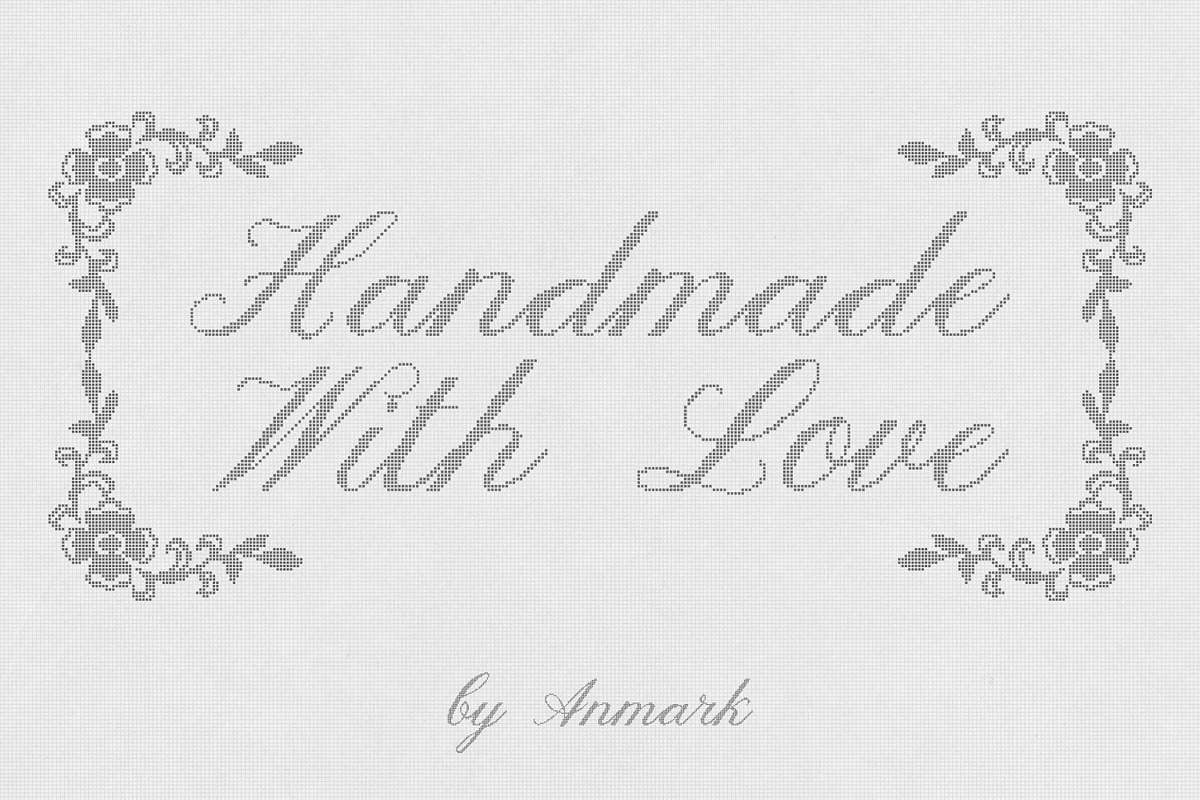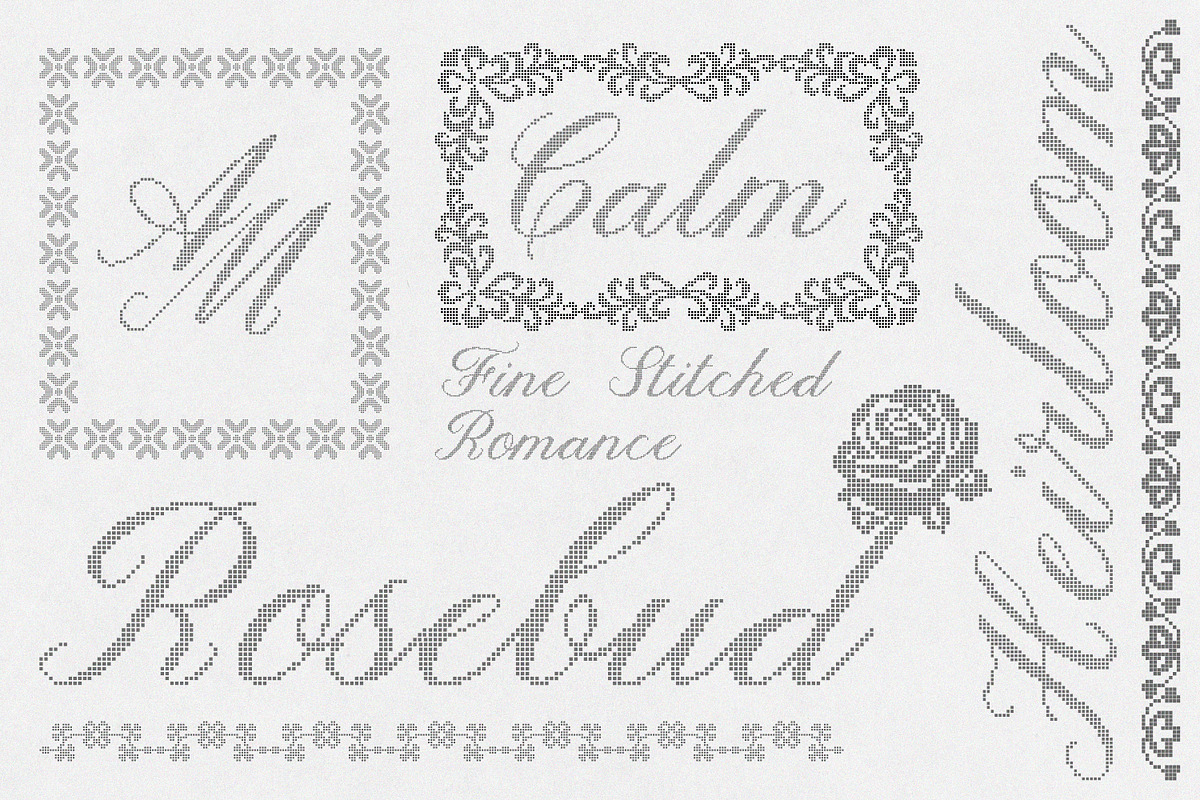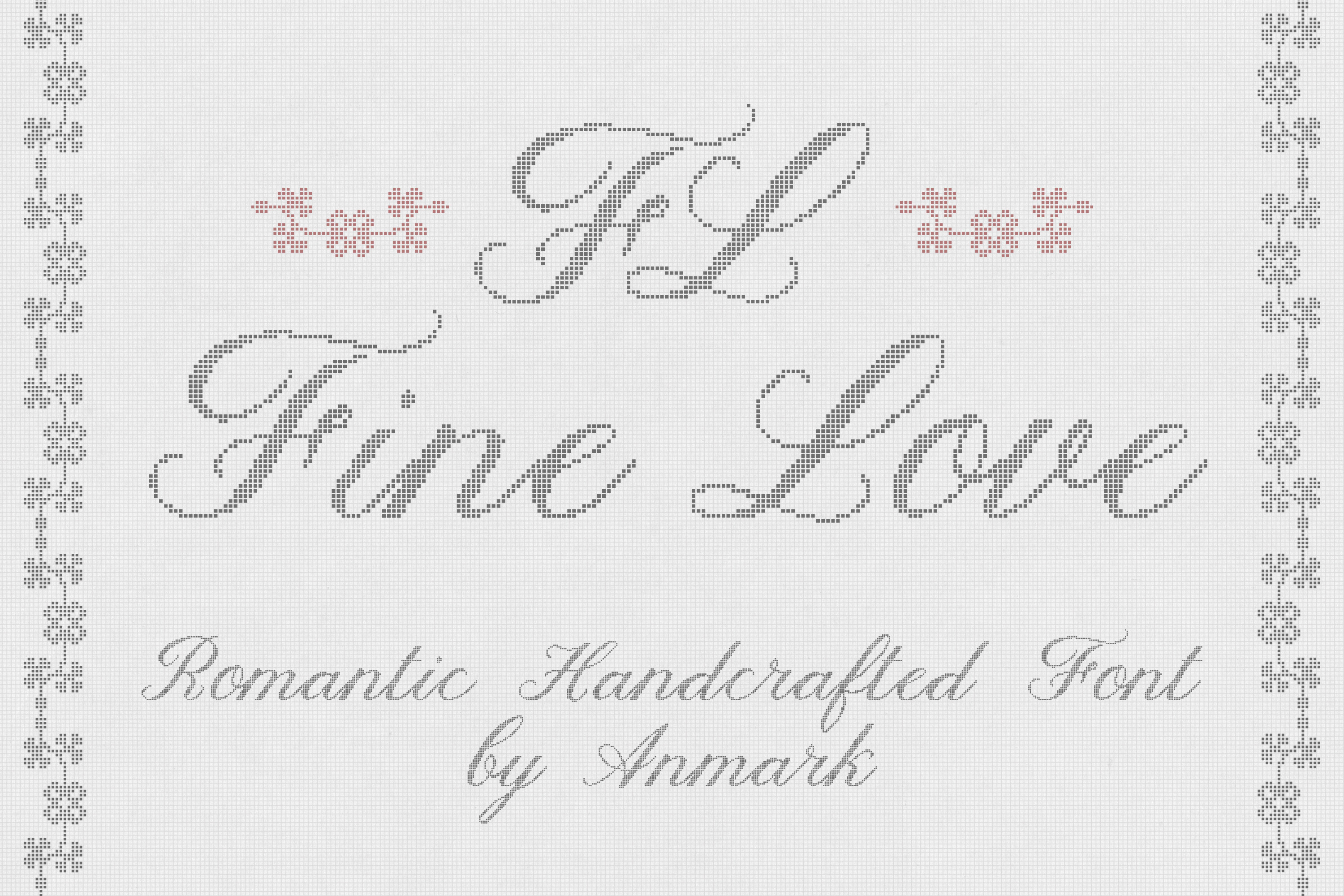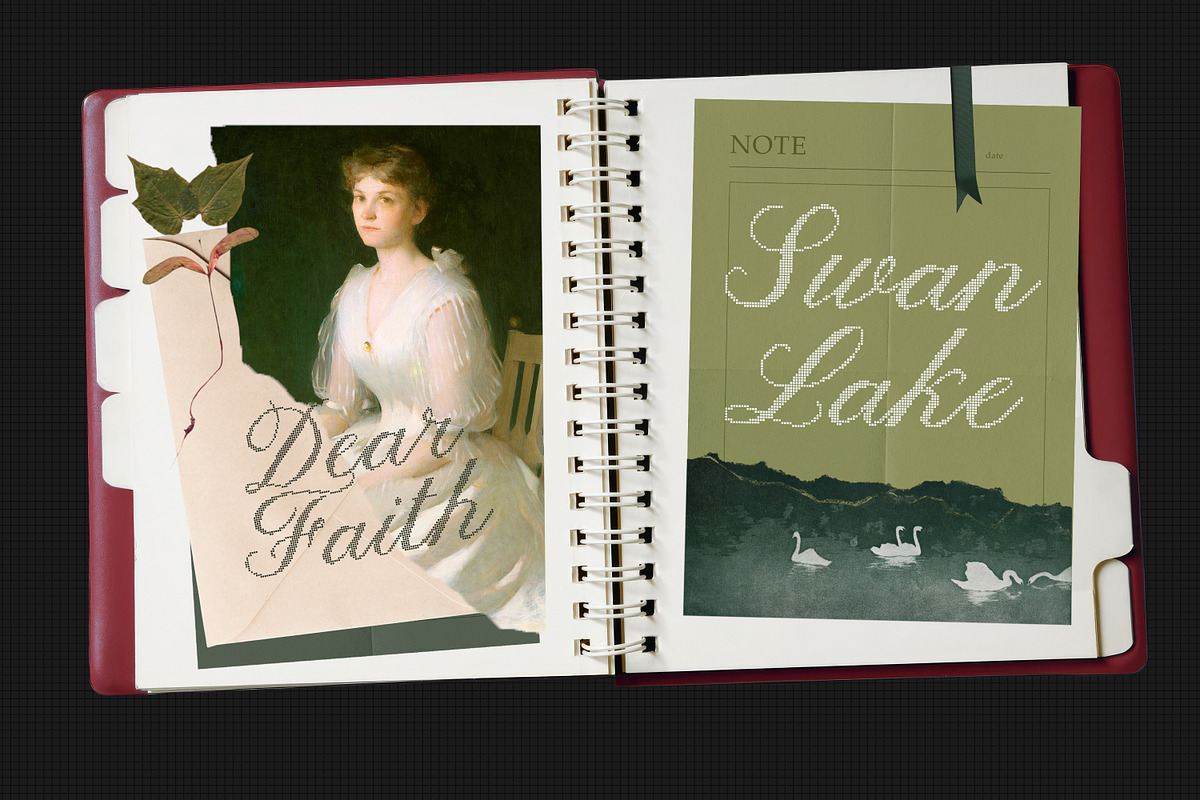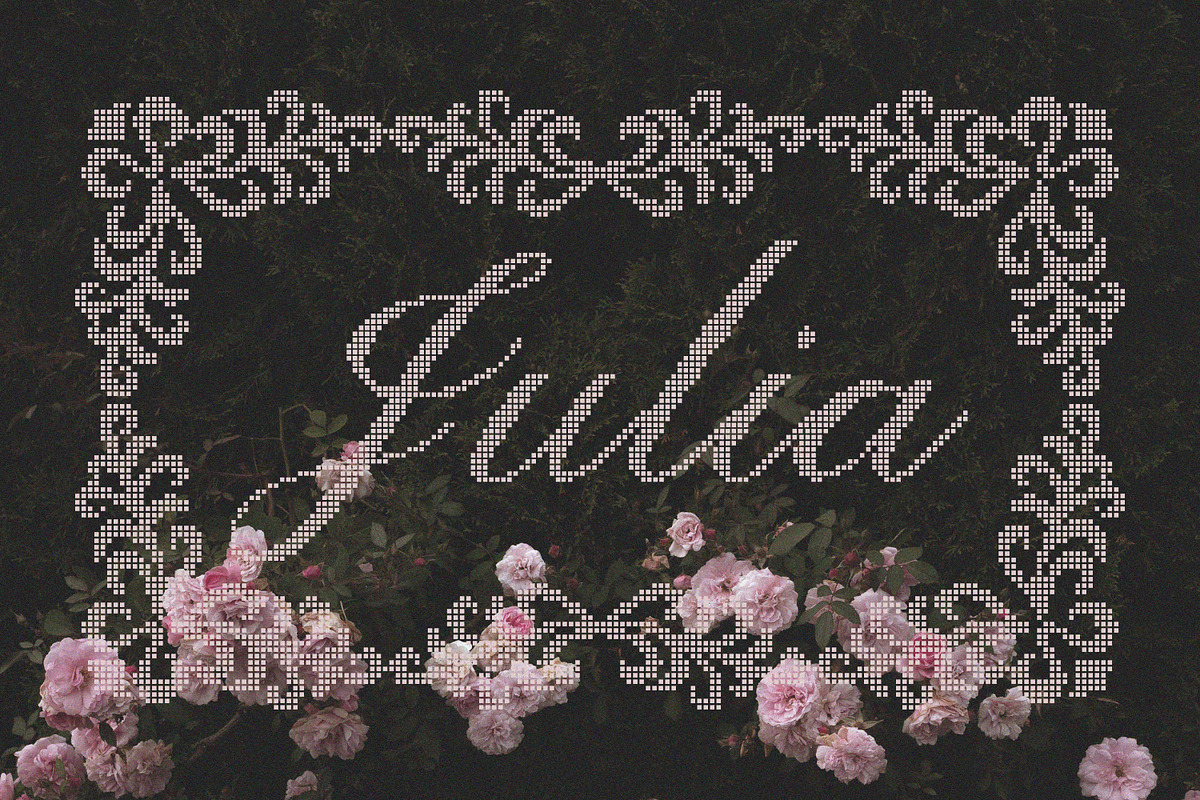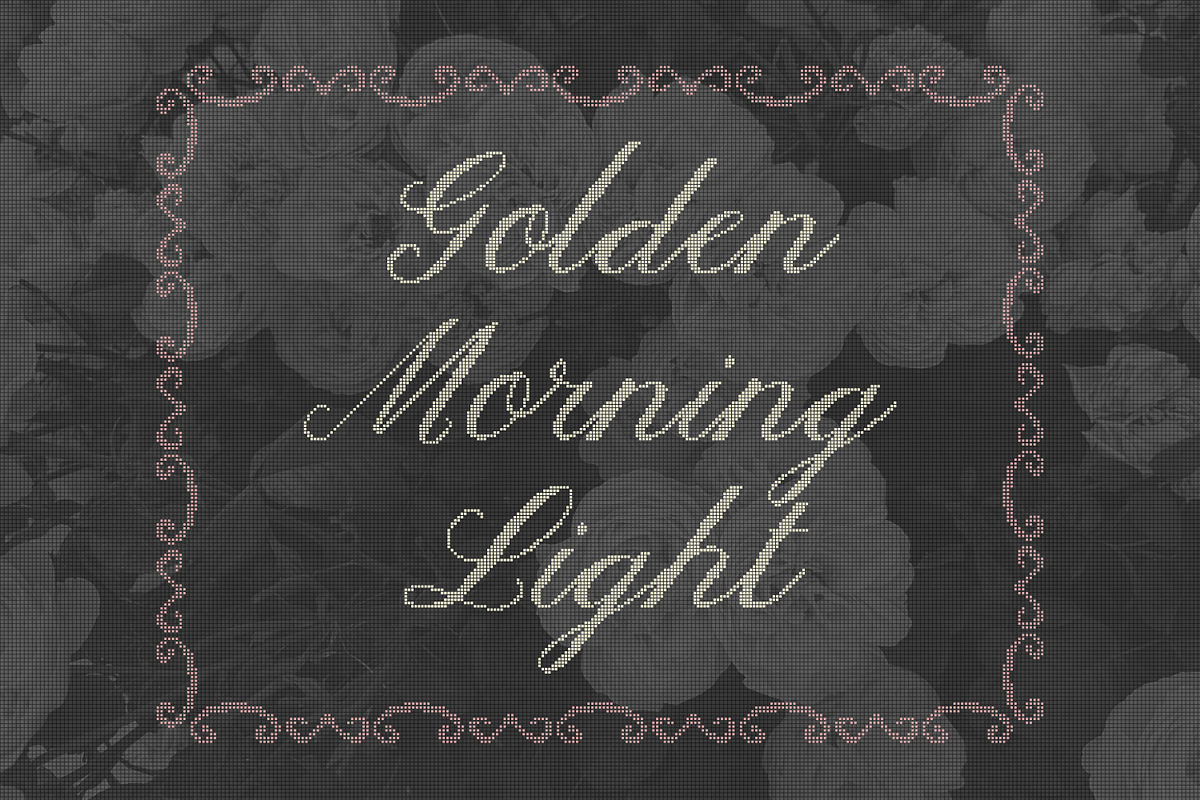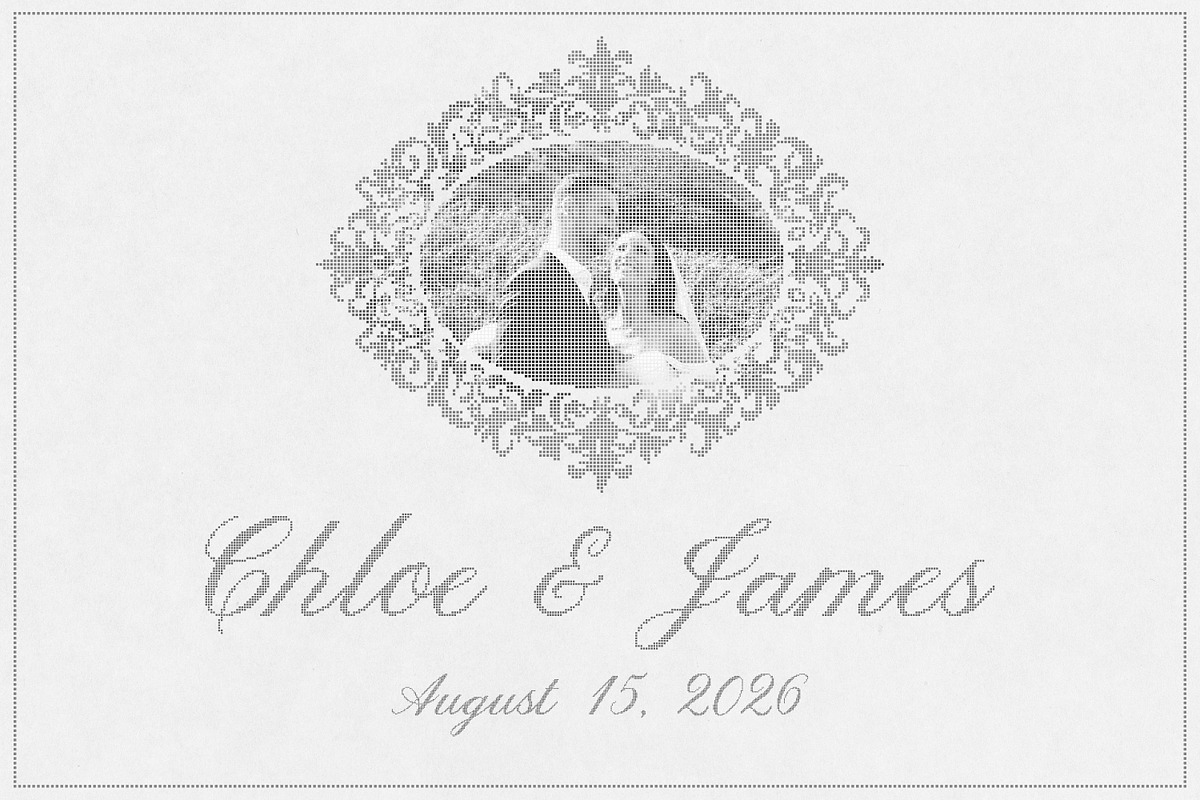
Fine Love Handcrafted Pixel Font
Fine Love is a romantic handcrafted font inspired by vintage embroidery, crochet textures, and delicate pixel-like stitching. Its soft, textured letterforms feel warm and tactile, as if gently woven by hand, bringing a sense of nostalgia, care, and timeless romance to every design.
This font blends elegant flowing shapes with a subtle pixelated, stitched character, creating a unique look that feels both decorative and heartfelt. Fine Love captures the charm of handmade craftsmanship, vintage textiles, and heirloom details, making it perfect for designs that celebrate love, memory, and tradition.
With its romantic and vintage-inspired style, Fine Love is ideal for wedding invitations, save the dates, vows, and bridal stationery. It works beautifully for monograms, initials, logos, keepsakes, and personalized details, adding a soft handcrafted touch to each piece. The font is also well suited for romantic branding, boutique logos, packaging, beauty and fashion projects, and editorial designs that call for warmth and elegance.
Fine Love brings together the feeling of embroidery, crochet, and pixel-crafted artistry in a refined romantic font, designed for creators who appreciate handcrafted beauty, gentle textures, and timeless love stories.